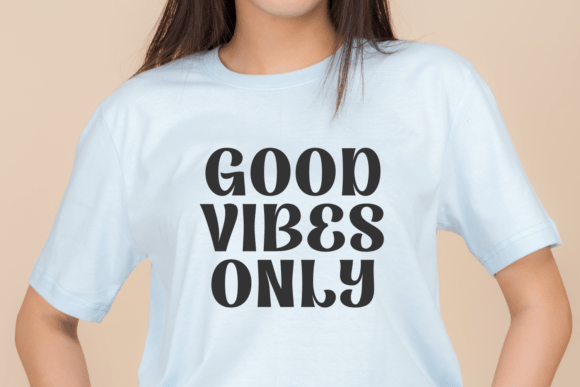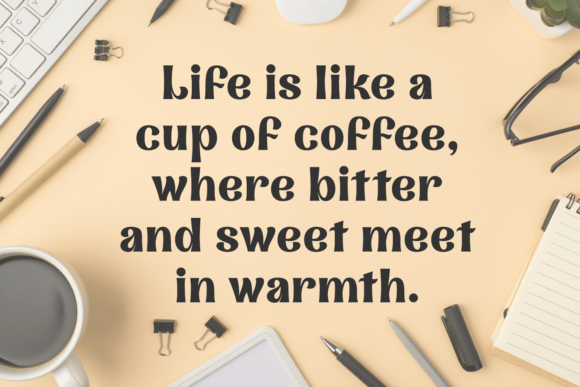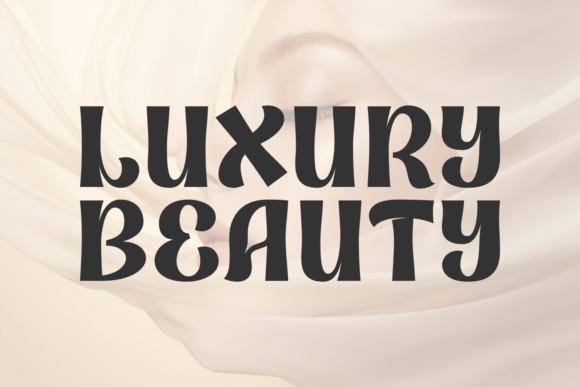
Unlocking the Power of the Humble Darling Font
As a designer, there’s nothing quite like the thrill of discovering a new font that captures the essence of your vision. For me, it was a late-night project where I was struggling to find the perfect headline font. That’s when I stumbled upon the Humble Darling Font – a dramatic and modern display serif font that would change everything.
The Humble Darling Font is a game-changer for designers seeking to make a bold statement. Its unique blend of heavy weight and sophisticated, flared serifs creates a strong, confident presence that demands attention. Whether you’re working on a high-end branding project, a fashion magazine, or luxury product labels, this font is sure to elevate your design to new heights.
What sets the Humble Darling Font apart is its ability to balance power and elegance. Its high contrast and subtle curves make it an instant favorite among designers, and its versatility ensures that it’s perfect for a wide range of projects.
Humble Darling Font Key Features
- Font Family: Humble Darling, Humble Darling Italic, Humble Darling Bold, Humble Darling Bold Italic
- Unique Characteristics: Hand-drawn, elegant, and whimsical design; Perfect for creating a warm and inviting atmosphere in designs, especially in invitations, greeting cards, and wedding stationery
Humble Darling Font Review
As a designer, I was excited to try out the Humble Darling font. Here’s my honest review:
- Unique charm: Humble Darling has a quirky, old-world feel that’s perfect for creative projects.
- Legibility: The font is easy to read, even at smaller sizes.
- Character set: It comes with a wide range of characters, including ligatures and alternates.
- Limited font weights: The font only comes in a few weights, which can make it less versatile for certain projects.
- No support for Asian characters: If you need to typeset text in languages that use non-Latin scripts, you’ll need to look elsewhere.
- No comprehensive language support: Some languages may require specific font features or character sets that aren’t included in Humble Darling.
Overall impression
Humble Darling is a lovely font that’s perfect for creative projects where you want to add a touch of whimsy. While it has some limitations, its unique charm and legibility make it a solid choice for designers who want to add some personality to their work.
The Humble Darling Font is ideal for:
Designing vintage-inspired posters and flyers.
Creating a whimsical and playful atmosphere in your branding and marketing materials.
Adding a touch of elegance and sophistication to your wedding invitations and stationery.